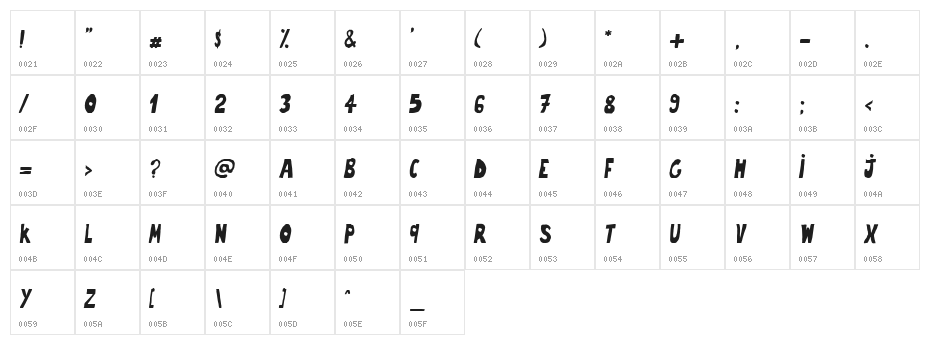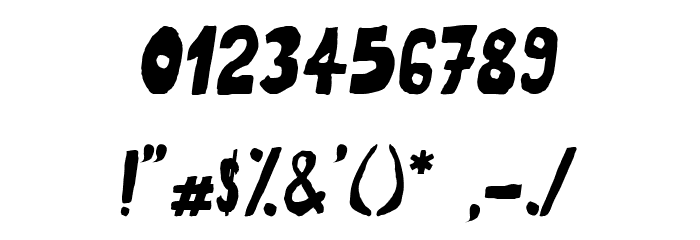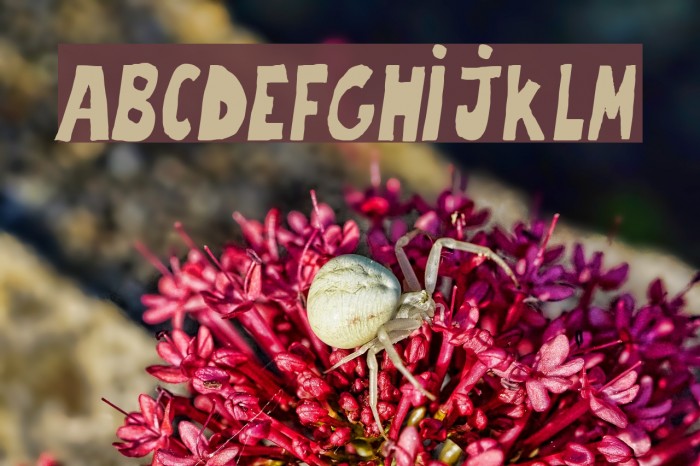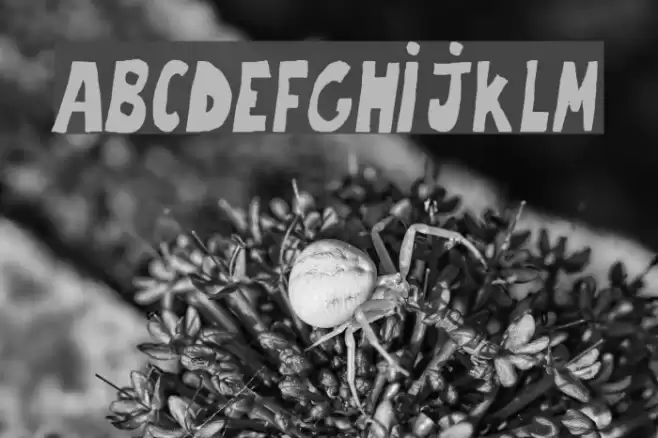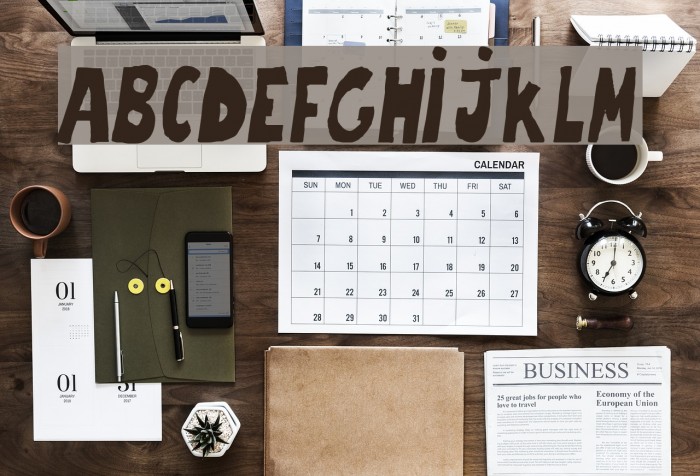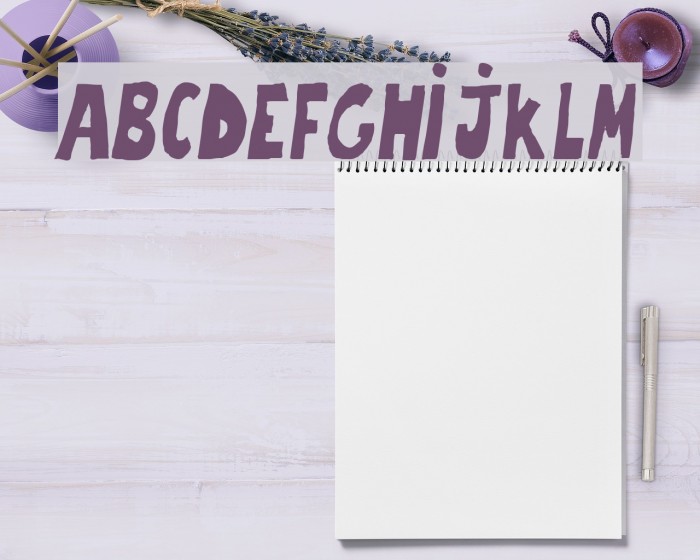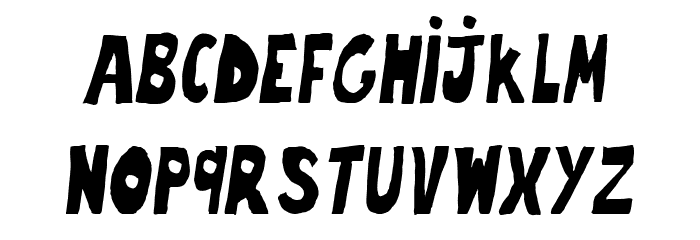
trouble-italique Font
trouble-italique Description
This font features a bold and dynamic style with a slightly slanted, italicized appearance. The characters are thick and have a hand-drawn, brush-like quality, giving them a lively and energetic feel. The uppercase and lowercase letters maintain a consistent weight, while the numbers and special characters are designed to match the overall aesthetic. The font's playful and informal nature makes it suitable for creative and expressive projects.
| Proposed Projects | Ideal for posters, logos, branding, and any project requiring a bold, expressive touch. |